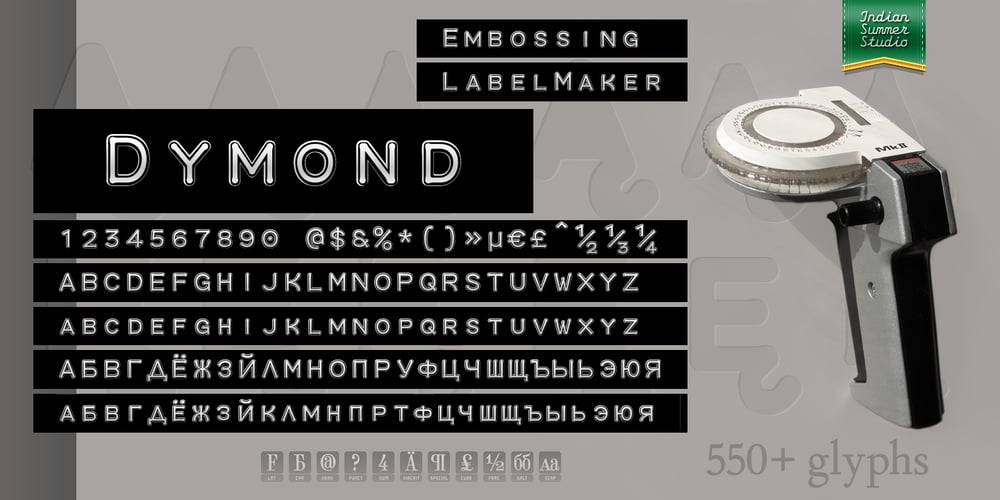
Dymond
Dymond font
Dymond Font Family was designed by Alexander Bobrov and published by Indian Summer Studio. Dymond contains 2 styles and family package options. A unique, special historical font. Add the feeling of the ’60s to you designs with Dymond.